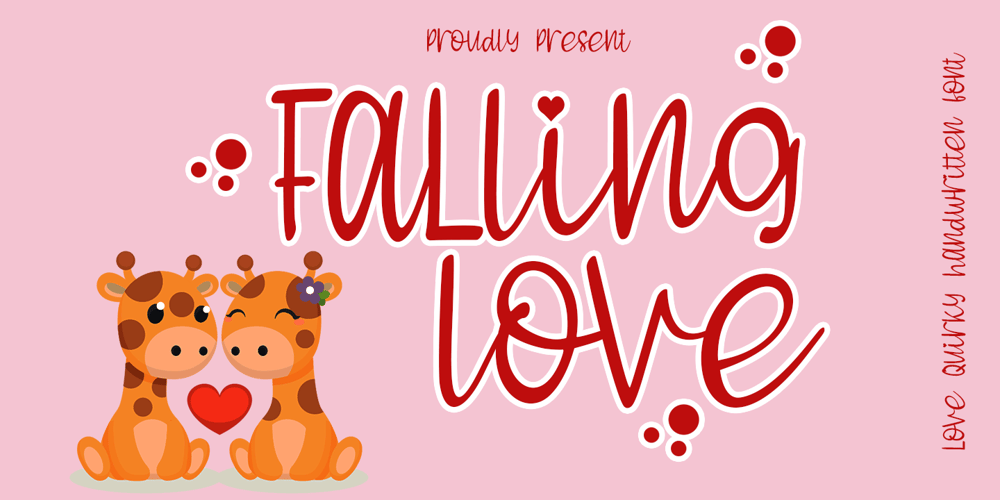
Falling Love Font Family was designed by Sarwo Edhi Prayitno and published by Haksen. Falling Love contains 1 styles and family package options. Introducing the elegant Falling Love quirky Font! If you are needing a touch of casual chic calligraphy for your designs, this font was created for you!This font works best in a program that supports OpenType features such as Adobe Indesign, Adobe Illustrator CC and CS, or Adobe Photoshop CC and CS also CorelDrawMore Questions? Here are some (potential) answers!Multilingual Support is included for Western European LanguagesCheers!